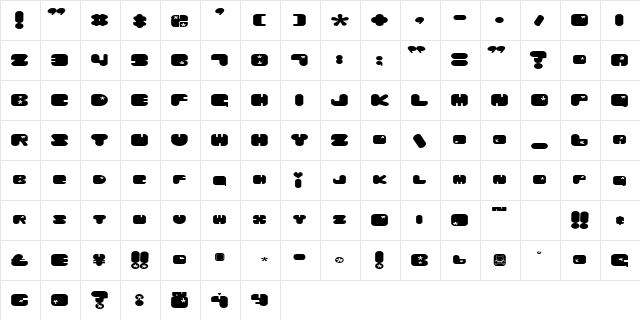
Lovedoll Salon Ultra Teeny Caps Regular
Design Context for Lovedoll Salon Ultra Teeny Caps Typeface
Lovedoll Salon Ultra Teeny Caps is a composed and adaptable typeface that performs quietly and consistently across a wide range of design contexts.